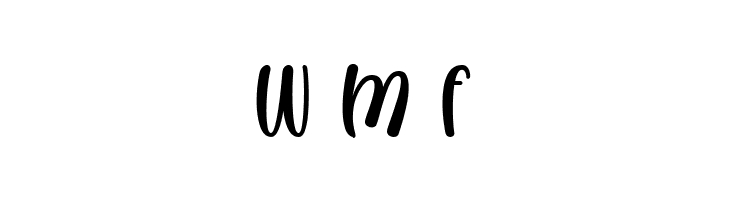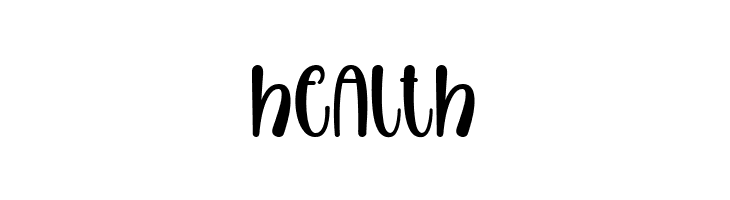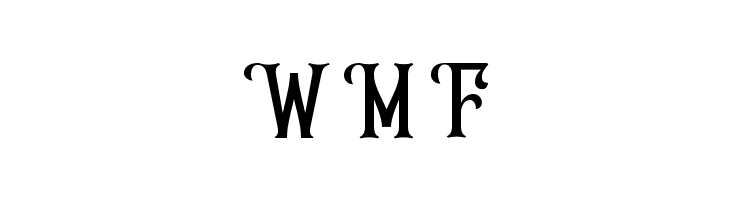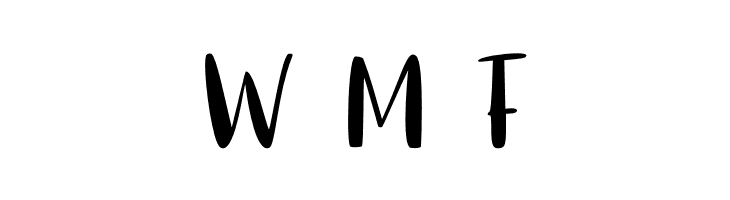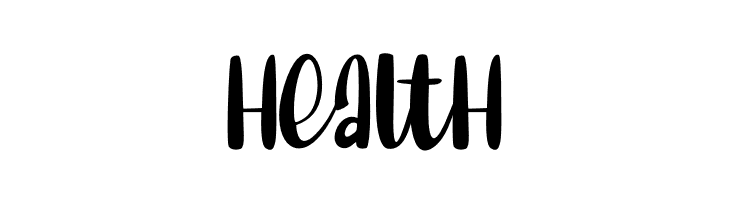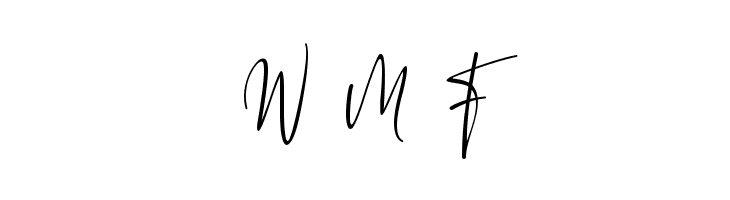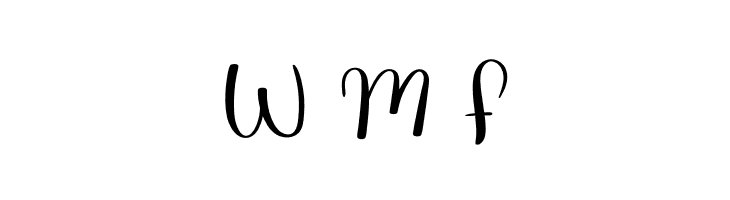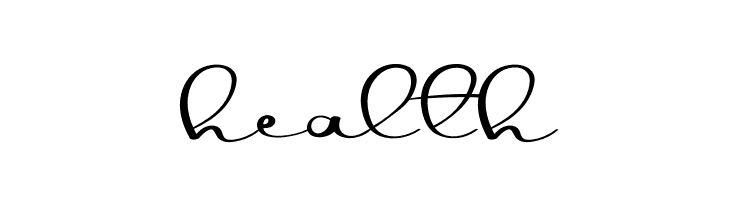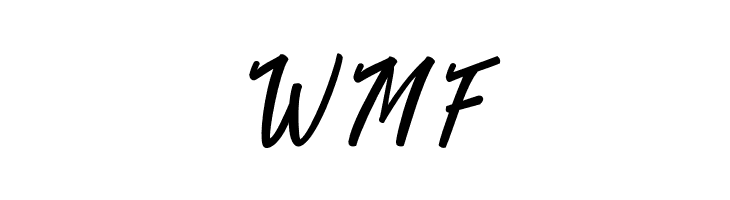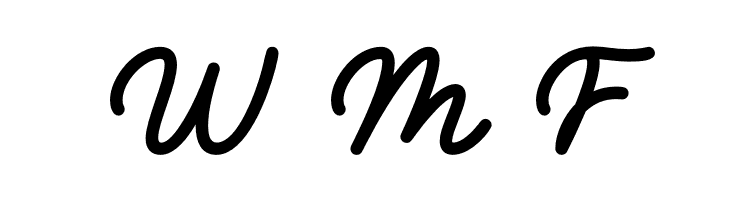
Nabana Shadow Bold Font
A bold, playful font with a shadow effect and rounded characters.
Nabana Regular Font
A playful, handwritten font with smooth, rounded strokes and a casual style.
Vincentia Font
Font by Alif Devan R.
A dynamic and elegant script font with fluid, sweeping letterforms.
HandilPro-Medium Font
Font by alifinart
A modern, sans-serif font with clean lines and excellent readability.
Just Do It Font
Alifia
A playful, hand-drawn font with rounded, informal characters.
Sun Summer - Personal Use Font
Font by Alif Ryan Zulfikar
A bold, playful handwritten font with rounded edges and a casual style.
Venetian Font
Font by Alif Devan R.
A bold, cursive font with dynamic strokes and a handwritten feel.
Beatrise Font
A modern, handwritten font with a casual and flowing style.
MusticaPro-SemiBold Font
A modern, geometric sans-serif typeface with a clean and balanced design.
Silence Rocken Font
A lively handwritten font with fluid strokes and playful loops.
Blackbird Font
A bold, cursive font with a flowing, handwritten style.
Candy Crush Font
A bold, playful script font with a handwritten style.
alana you Font
alifirman - Ali Firman - www.creativefabrica.com/designer/meutuwah/ref/20027/
A cursive, handwritten font with elegant, flowing strokes.
Kachine Font